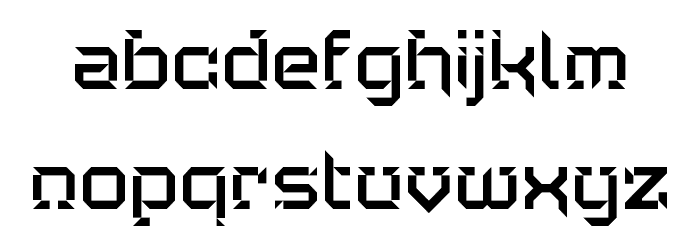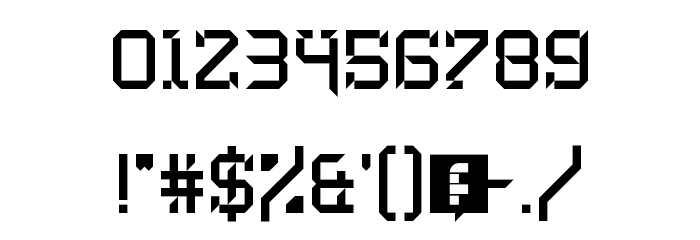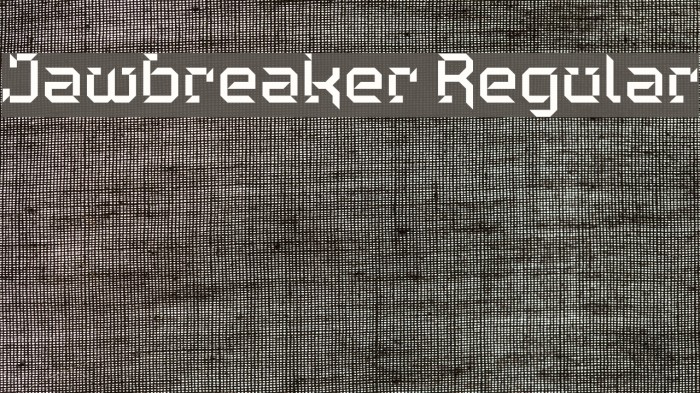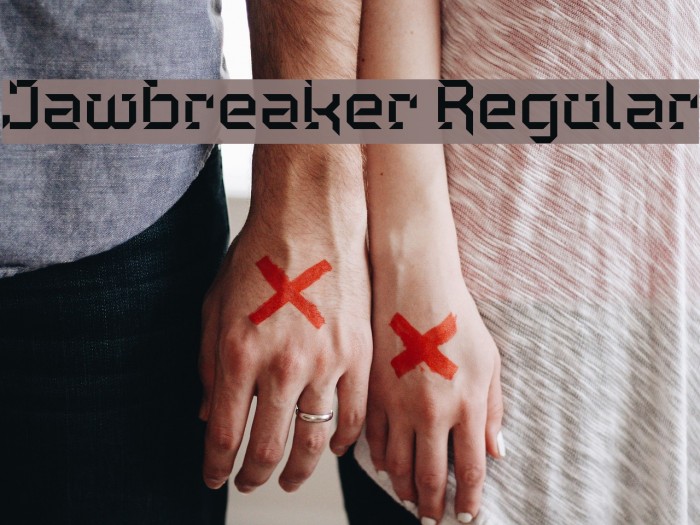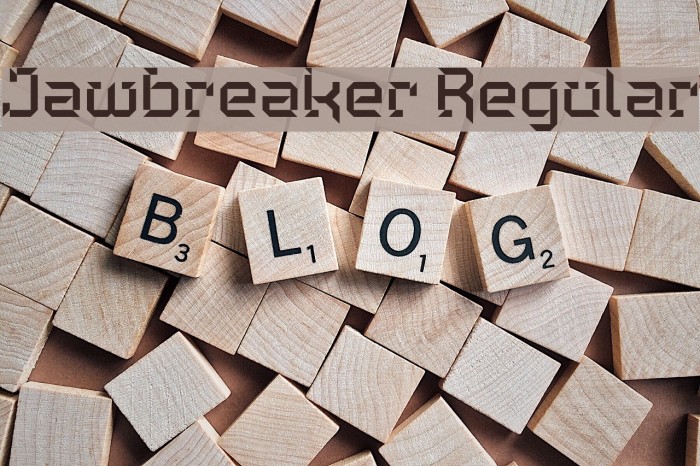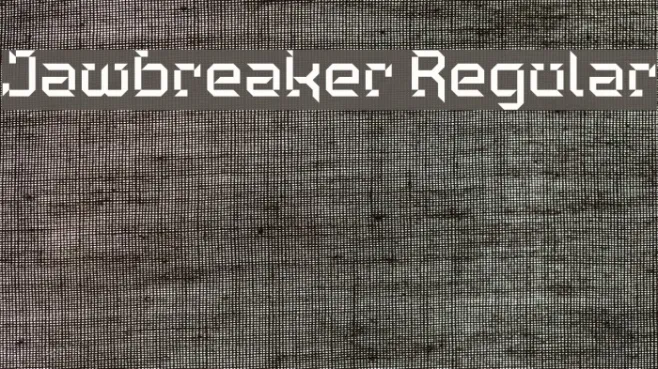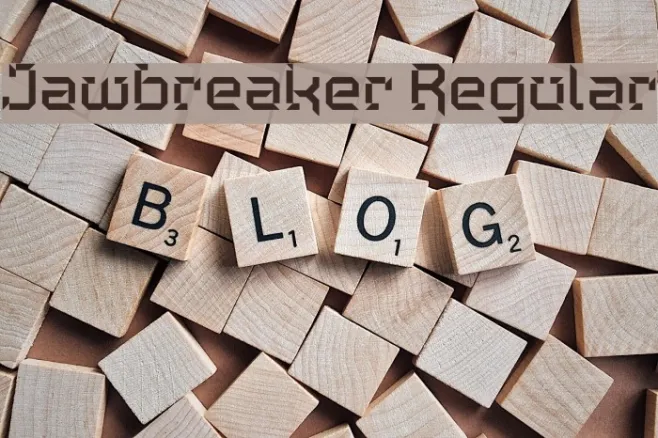
Jawbreaker Regular Font
This font features a bold, geometric design with sharp angles and a futuristic aesthetic. The characters are constructed with a series of straight lines and angular cuts, giving it a distinctive, edgy appearance. The uppercase and lowercase letters maintain a consistent style, with the uppercase being more pronounced. Numbers and special characters follow the same geometric pattern, ensuring uniformity across all glyphs. The overall look is modern and dynamic, making it suitable for projects that require a strong visual impact.
- Proposed Projects: Ideal for sci-fi themed designs, video game titles, posters, and branding that requires a modern, edgy look.